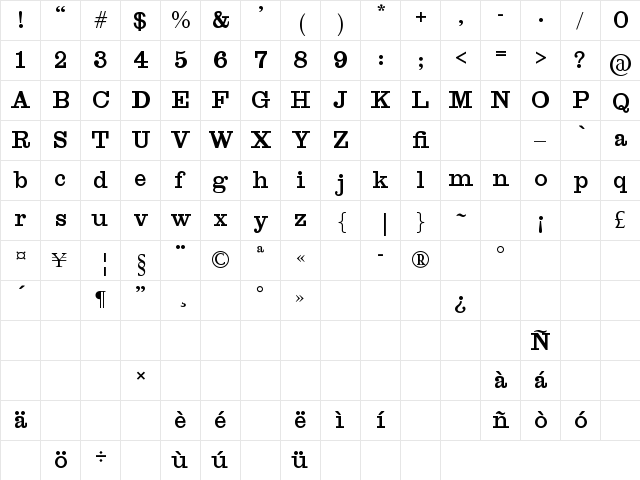
Antique Double Test Regular Font Preview
Antique Double Test Regular
Design Context for Antique Double Test Typeface
Antique Double Test has the warm character of retro typography — evoking diners, record sleeves, and the golden age of print advertising.
Font Pairing: Combine Antique Double Test with a simple slab or neutral sans — period-accurate companions reinforce the vintage feel without competing for attention.
Pro Tip: Lean into Antique Double Test's period character by pairing it with aged paper textures, muted colour palettes, and vintage illustration styles.